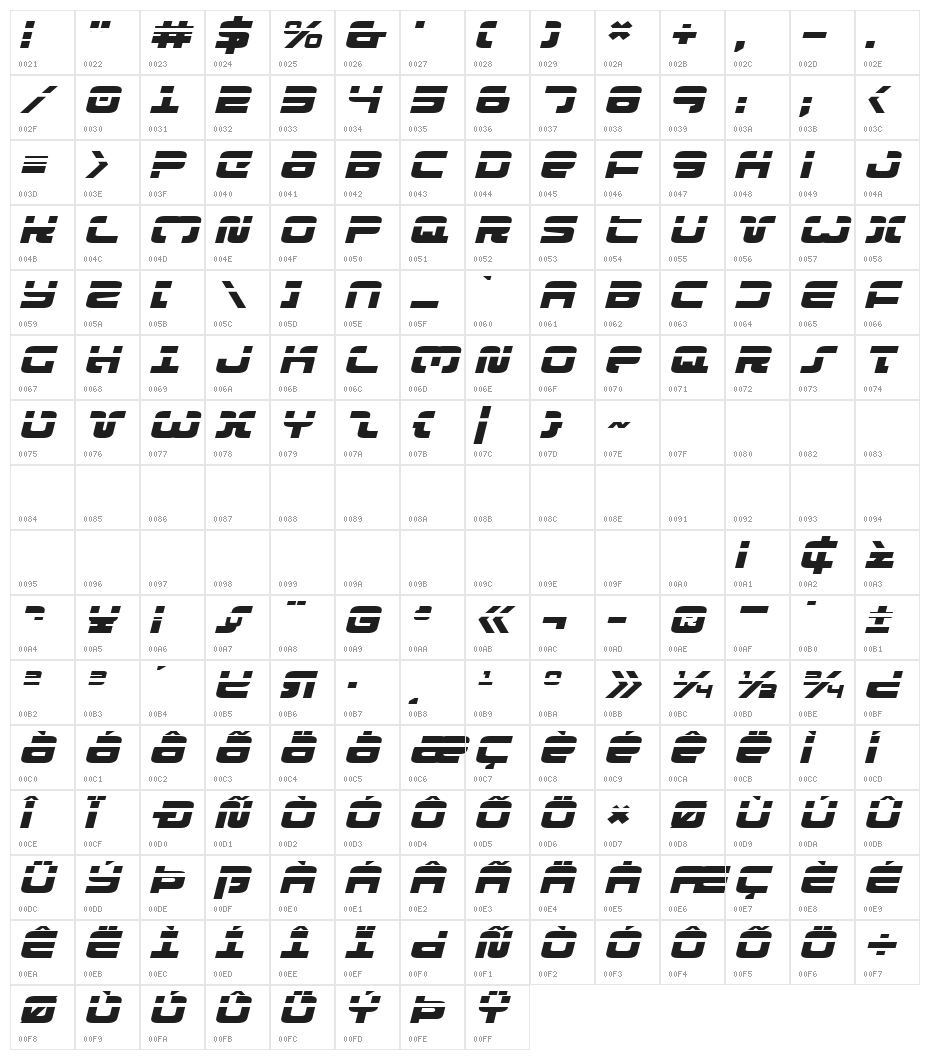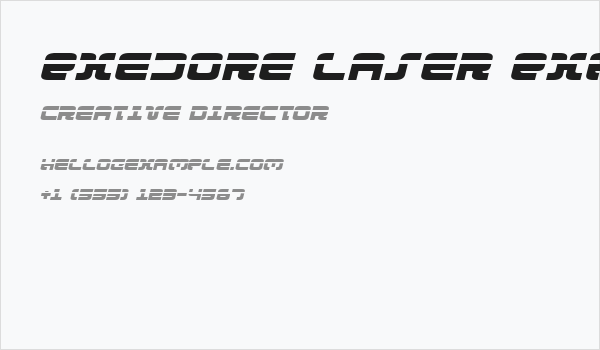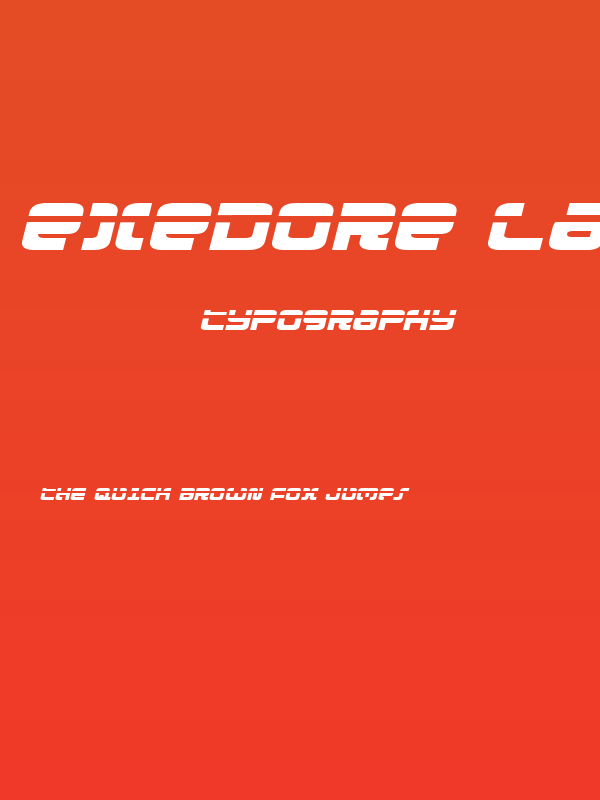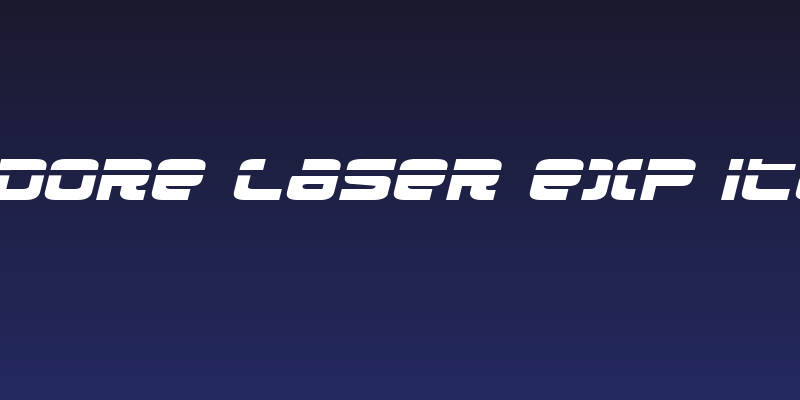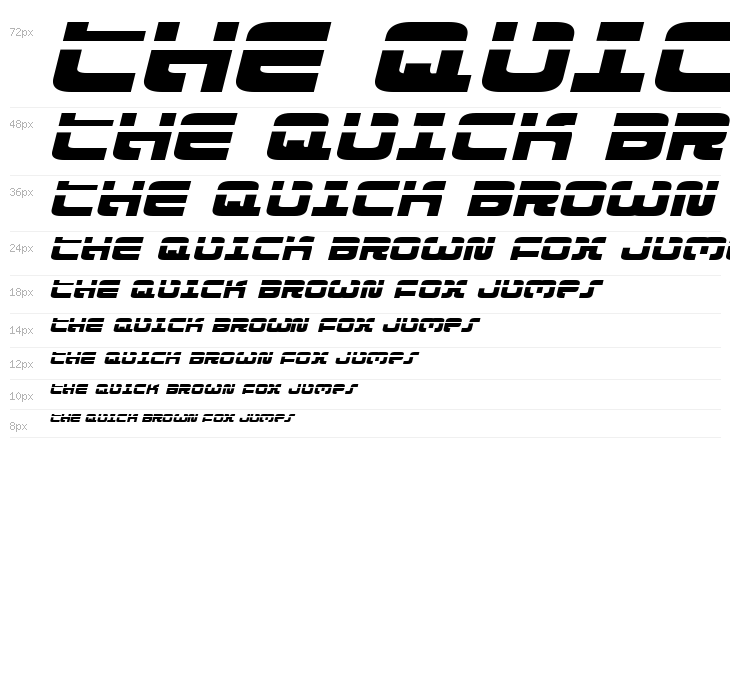
Exedore Laser Exp Italic Font
Exedore Laser Exp Italic Description
This font features a futuristic and dynamic style, characterized by its bold and italicized letterforms. The design incorporates sharp angles and geometric shapes, giving it a high-tech and modern appearance. The characters are slightly expanded, enhancing their presence and readability. The font's unique cutouts and slanted edges add a sense of motion and speed, making it ideal for projects that require a contemporary and energetic look. The consistent stroke thickness throughout the characters ensures a uniform and cohesive appearance, while the spacing between characters is moderately tight, contributing to its compact and impactful design.
| Proposed Projects | Ideal for technology branding, sci-fi movie posters, video game titles, and modern advertising campaigns. |